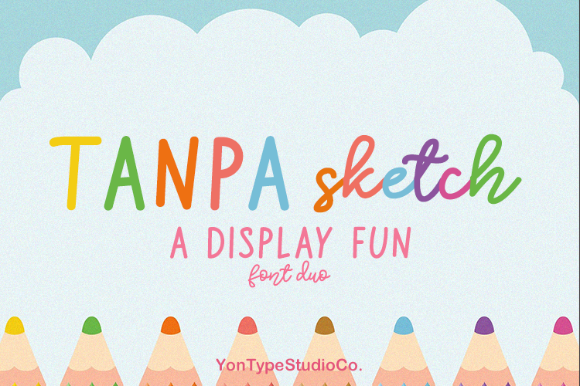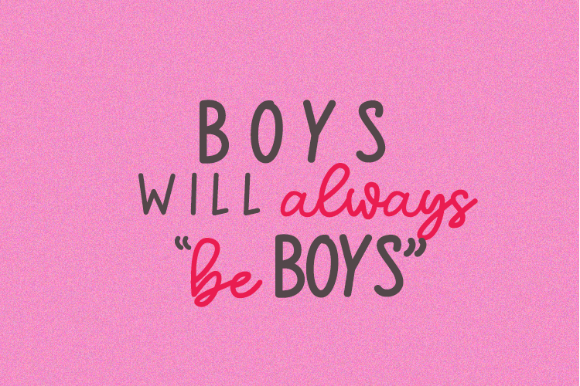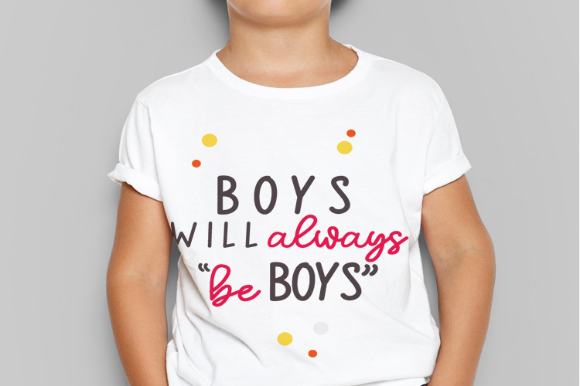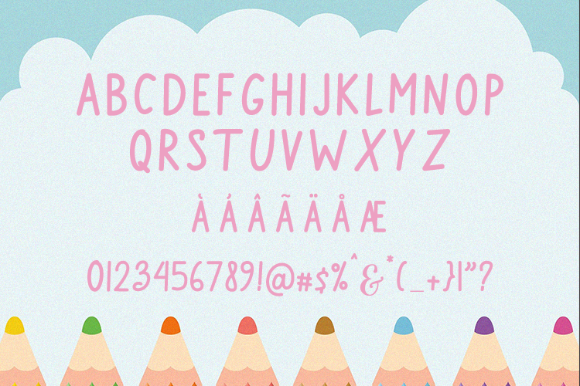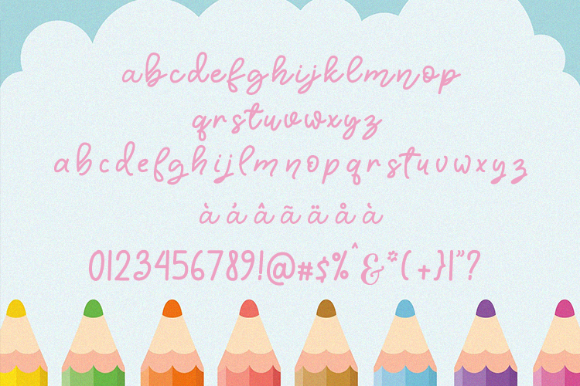
About Tanpa Sketch Font
Tanpa Sketch is a simple and sweet duo font (script and display). Incredibly versatile, this font fits a wide pool of designs, elevating them to the highest levels. Add this font to your favorite creative ideas and notice how it makes them come alive!